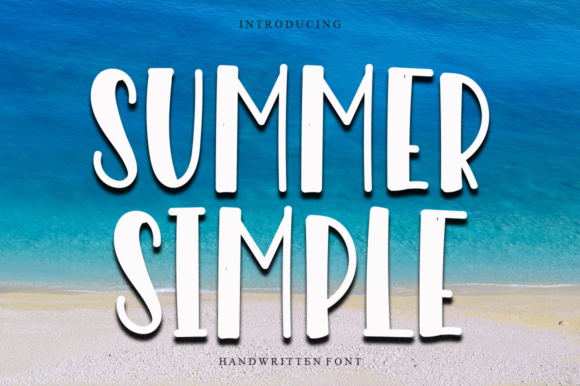
Behold the Summer Simple font, a captivating and bold display font, where elegance meets style. Crafted with utmost precision by A2-lucky, this font exudes a distinctive character that will leave a lasting impression.
Its refreshing and airy aesthetics evoke the beauty of a summer breeze, adding a touch of warmth and sunshine to your designs. Whether you're creating logos, posters, invitations, or any other visual masterpiece, the Summer Simple font offers an unmatched allure.
Express your individuality with its elegant curves and eye-catching strokes, perfect for adding a touch of playful sophistication to your creative projects. Let the Summer Simple font transport you to a world of endless possibilities, where creativity knows no bounds.
Immerse yourself in the charm of Summer Simple and discover a font that not only beautifies your designs but also captivates the hearts of your audience. Its versatility knows no limits, allowing you to explore various styles and themes, from modern and minimalist to classic and timeless.